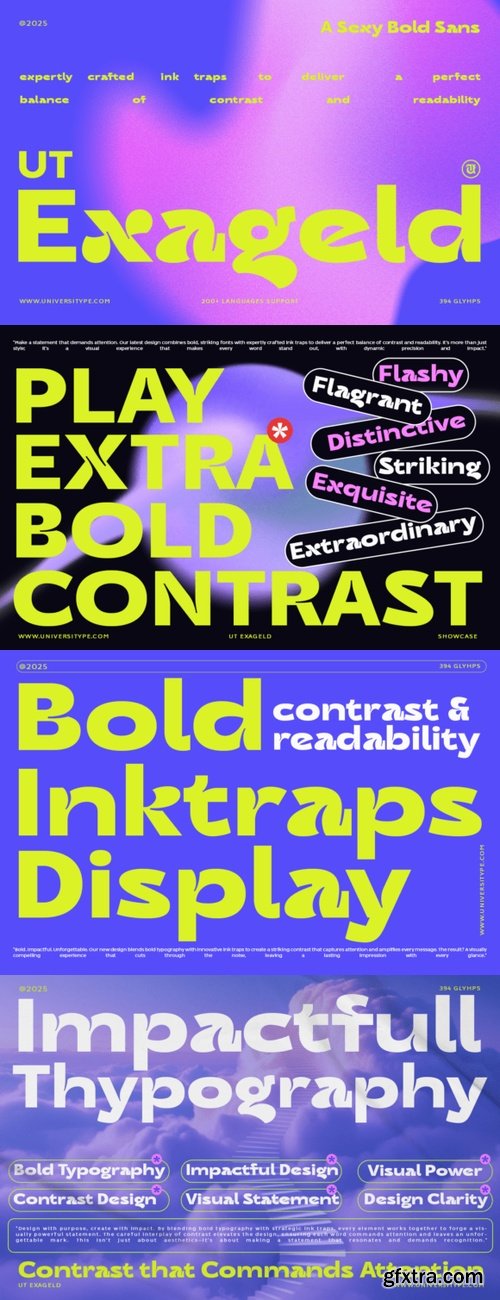
- UT Exageld is a bold, sexy, and versatile sans-serif font that is perfect for designers looking to make a strong visual impact. With its expertly crafted ink traps, UT Exageld delivers a perfect balance of contrast and readability, making it suitable for a wide range of applications.
- This font is ideal for graphic designers, typographers, and creative professionals who are looking for a modern and striking typeface to use in their projects. It is particularly well-suited for those working in branding, advertising, and editorial design.
Creativity and customization reach new peaks with the multiple alternate characters included in this font. For a unique twist, try out the different variants for letters “f,” “t,” “i,” and “l”. The proprietary ink trap design employed infuses a higher contrast, ensuring remarkable readability and versatility across applications. Perfect for headlines, posters, branding, or any project demanding an assertive typeface, UT Exageld is your go-to choice. Inspired by the allure of modern aesthetics, UT Exageld is an icon of the bold and sublime, meant to make a statement in a visually saturated landscape. The inspiration spills over from abstract art, including unique angles and bold statements drawn from Mireille Lauf-Marquis’s renowned statue “La femme et l’océan”. Combine UT Exageld’s audacious appeal with your creativity to craft captivating headlines or make a splash with posters. Let your brand’s identity bask in this stylish and modern font’s glory. In print or in digital, UT Exageld stands out with its high readability, ensuring your content makes an impact every time.